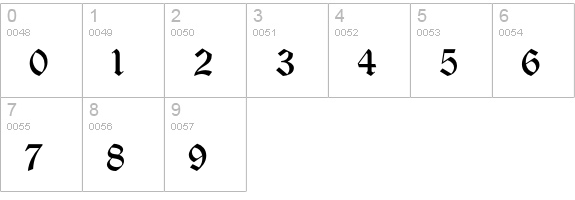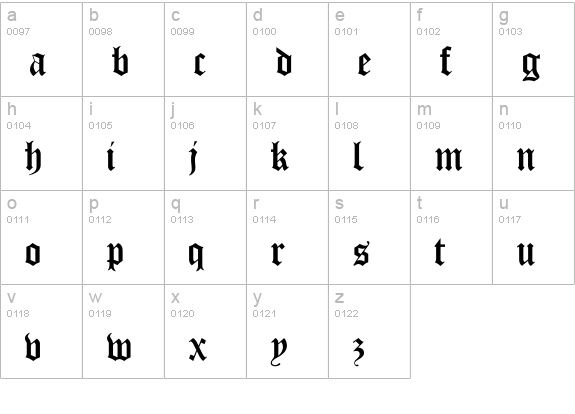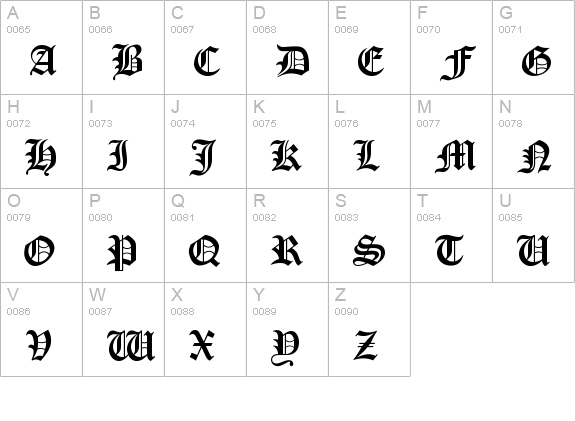
Sherwood Font Details
Introducing the captivating elegance of Sherwood font - a timeless typeface that effortlessly captures the essence of refined sophistication. With its graceful curves and balanced letterforms, Sherwood font is the perfect choice for projects that demand a touch of class and elegance. This versatile font is incredibly versatile, making it suitable for a wide range of design applications. From wedding invitations to logo designs, editorial layouts to branding projects, Sherwood font adds a touch of timeless beauty to any creative endeavor. What makes Sherwood font truly remarkable is not only its visually stunning aesthetics but also its accessibility. As a free font, it is now readily available to download at FontsMarket.com, allowing designers and creators of all levels to effortlessly harness the power of this beautiful typeface. Sherwood font effortlessly combines tradition with modernity, offering a harmonious balance between classic elegance and contemporary sensibilities. Its legibility ensures clear communication, while its artistic details add a touch of personality and flair. Each character is meticulously crafted, resulting in a typeface that is both visually pleasing and highly functional. Whether used for print or digital designs, Sherwood font is sure to make a lasting impression. Its versatility allows it to adapt to various design aesthetics, making it a valuable asset for any project. From delicate scripts to bold headlines, Sherwood font's wide range of weights and styles provide endless creative possibilities. Experience the beauty and versatility of Sherwood font today, and elevate your designs to new levels of sophistication. Download this stunning typeface for free at FontsMarket.com and let Sherwood font become your go-to choice for all your design needs.